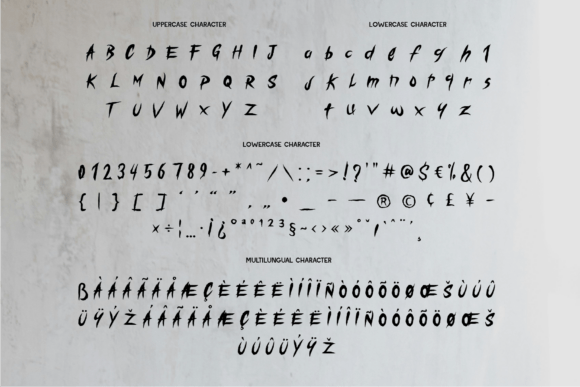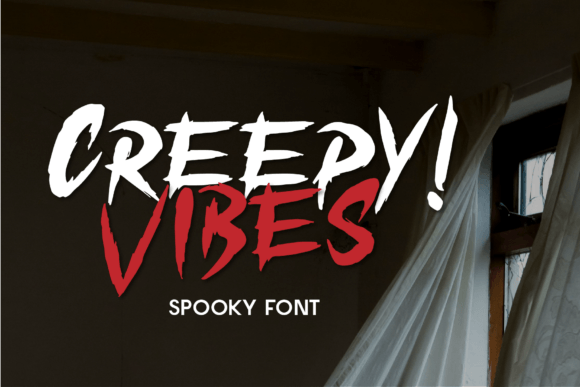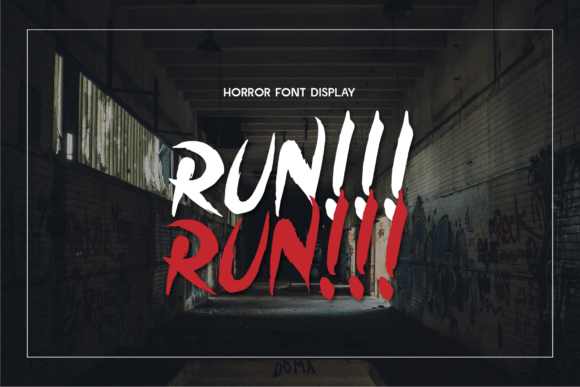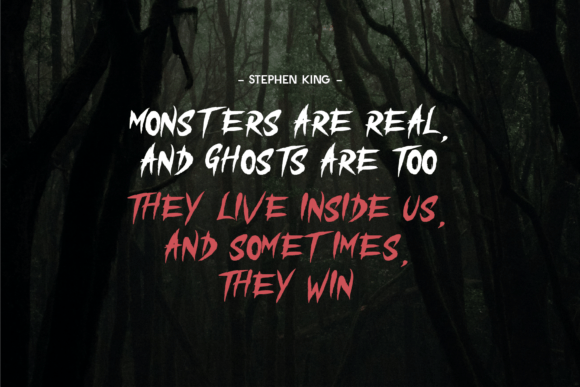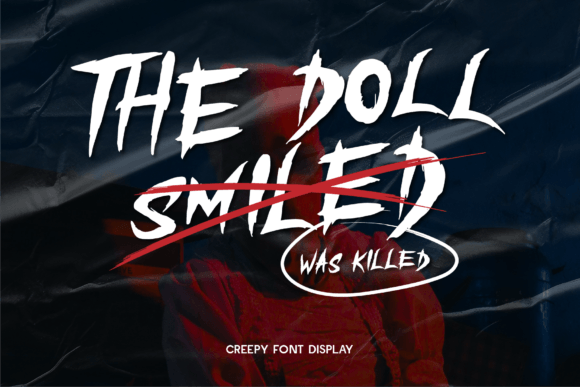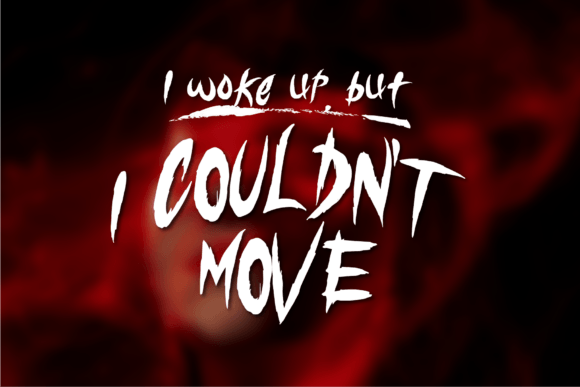
Introduction to Nightmare Claw Font
Nightmare Claw is a raw, handwritten display font with intense scratchy and grunge aesthetics.
Its jagged and freeform strokes evoke a sense of chaos and fear, perfect for horror-themed projects, thriller posters, and spooky designs The rugged texture of the letters mimics claw marks, giving your visuals an eerie, unsettling tone.